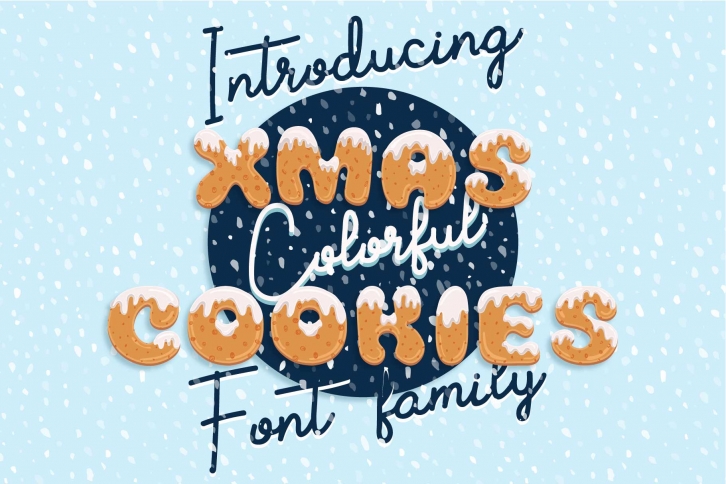
Xmas cartoon cookie family is a great font that was designed by Zimages. Imagine the amount of combinations you can create using this font! The archive is 8.34 MB and it was released on November 26, 2018. Xmas cartoon cookie family looks beautiful on wedding invitations, greeting cards, logos, posters, labels, t-shirt designs, logos, business cards and is perfect for use in ink or watercolor works, fashion, magazines, packaging and food menus, children's books and more!